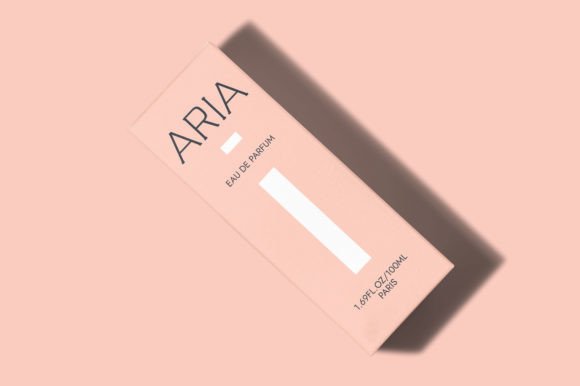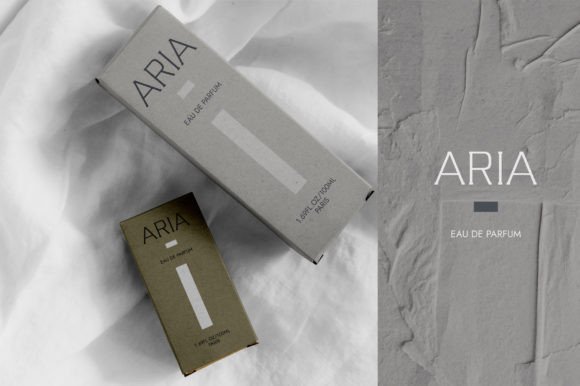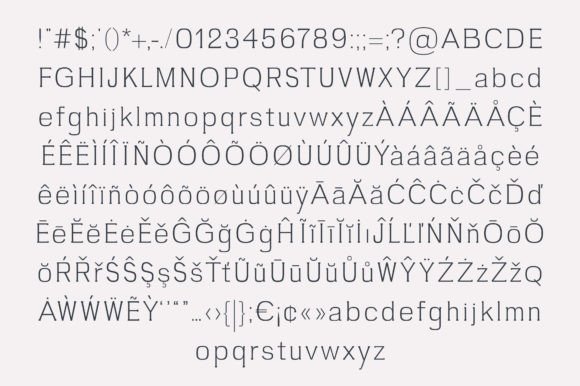
Aria Font: Elevate Your Designs with Elegance and Sophistication
In the world of typography, fonts play a crucial role in conveying the tone and personality of a design. For designers and crafters seeking to add a touch of elegance and sophistication to their creations, Aria Font is an excellent choice. This thin, elegant, and minimalist slab serif typeface is designed to make a statement, particularly in display settings.
What is Aria Font?
Aria Font is a carefully crafted slab serif typeface that exudes refinement and poise. Its slender lines and minimalist aesthetic make it perfect for designs that require a high level of sophistication. Whether you’re working on a perfume label, magazine cover, or social media post, Aria Font is sure to elevate your design to new heights.
Characteristics of Aria Font
Aria Font boasts several characteristics that make it an attractive choice for designers:
- Thin and Elegant: Aria Font features slender lines that give it a refined and elegant appearance.
- Minimalist Aesthetic: The font’s minimalist design makes it versatile and easy to pair with other typography.
- Slab Serif: The slab serif design adds a touch of sophistication and elegance to any design.
Use Cases for Aria Font
Aria Font is incredibly versatile and can be used in a variety of contexts, including:
- Perfume and Cosmetics Labels: The font’s elegant and sophisticated design makes it perfect for labeling luxury perfumes and cosmetics.
- Magazine Covers: Aria Font can add a touch of sophistication and glamour to magazine covers, making it perfect for fashion, lifestyle, and beauty publications.
- Posters and Flyers: The font’s bold yet elegant design makes it ideal for creating eye-catching posters and flyers.
- Social Media Posts: Aria Font can add a touch of elegance and sophistication to social media posts, making it perfect for fashion, beauty, and lifestyle brands.
- Fashion Designs: The font’s minimalist and elegant design makes it perfect for use in fashion designs, such as clothing labels and brand identities.
Why Choose Aria Font?
There are several reasons why designers and crafters should consider using Aria Font in their creations:
- Elegance and Sophistication: Aria Font adds a touch of elegance and sophistication to any design.
- Versatility: The font’s minimalist design makes it versatile and easy to pair with other typography.
- Easy to Read: Despite its slender lines, Aria Font is easy to read, even in smaller sizes.
Tips for Using Aria Font
To get the most out of Aria Font, consider the following tips:
- Pair with Bold Typography: Pair Aria Font with bold typography to create visual interest and contrast.
- Use in Display Settings: Aria Font is designed for display settings, so use it to make a statement in your designs.
- Experiment with Colors: Aria Font looks great in a variety of colors, so experiment with different hues to find the perfect fit for your design.
Aria Font is a stunning slab serif typeface that can elevate any design to new heights. Its elegant and sophisticated design makes it perfect for use in a variety of contexts, from perfume labels to social media posts. With its versatility, ease of use, and elegant design, Aria Font is sure to become one of your favorite fonts. So why not give it a try and see the difference it can make in your designs?